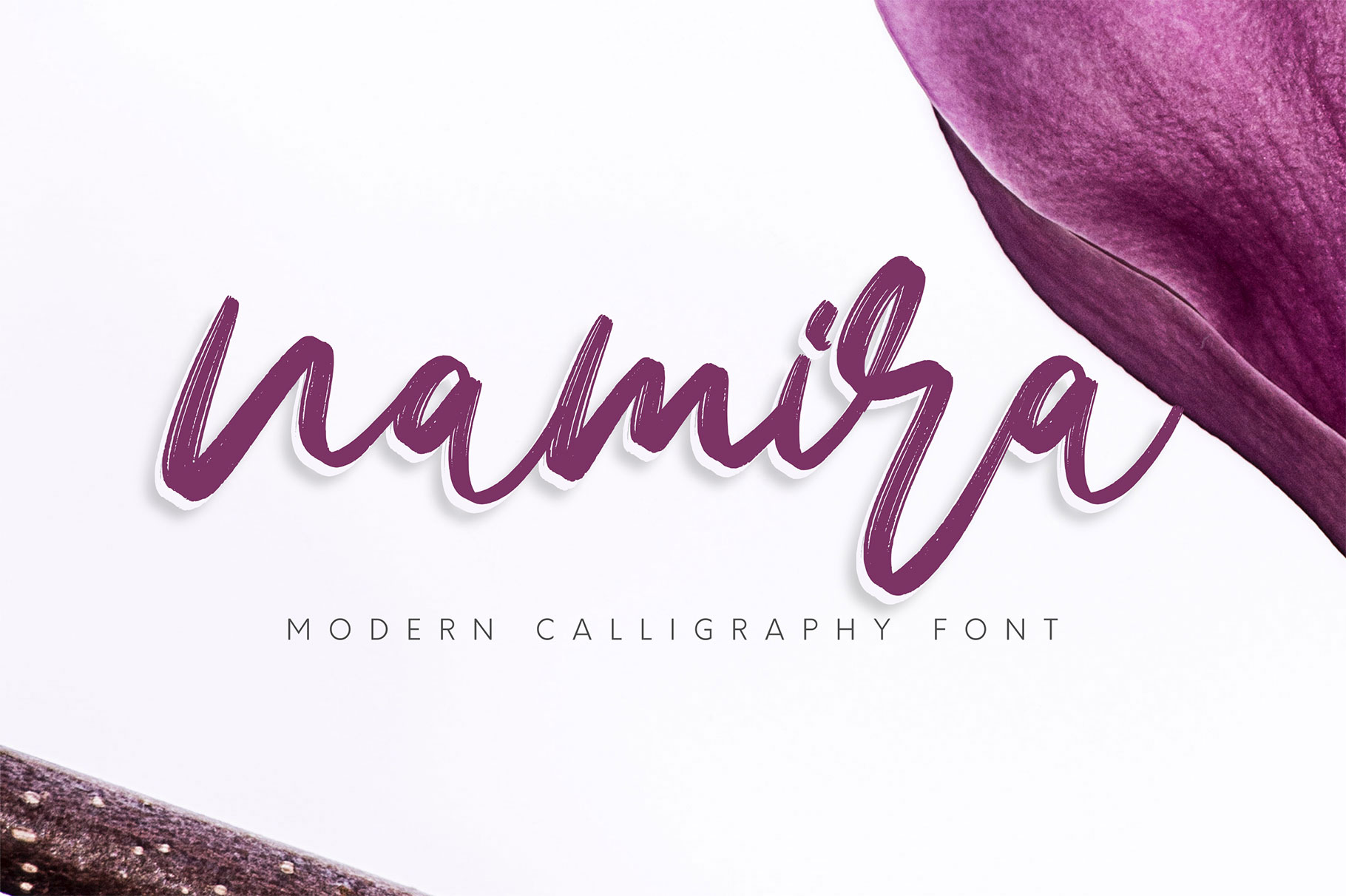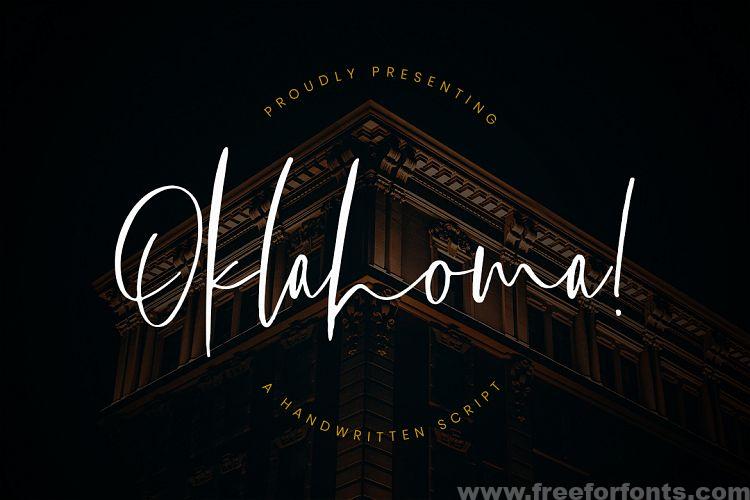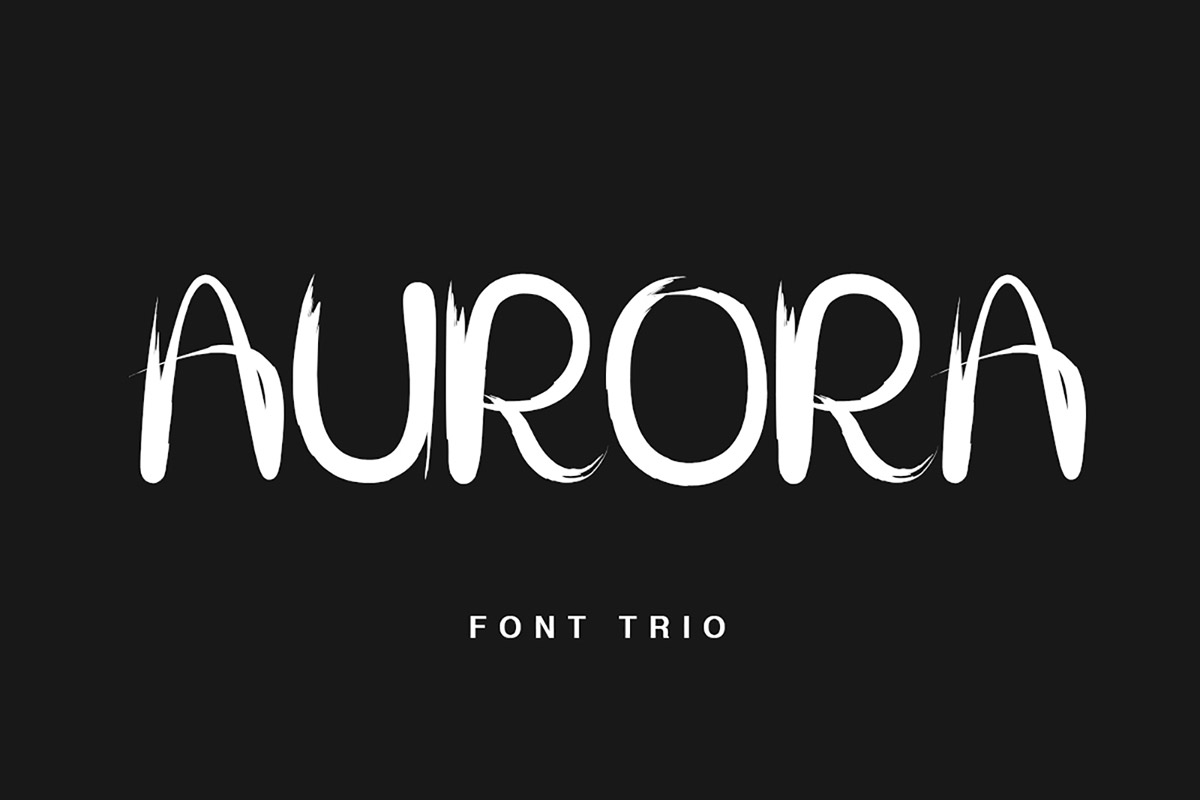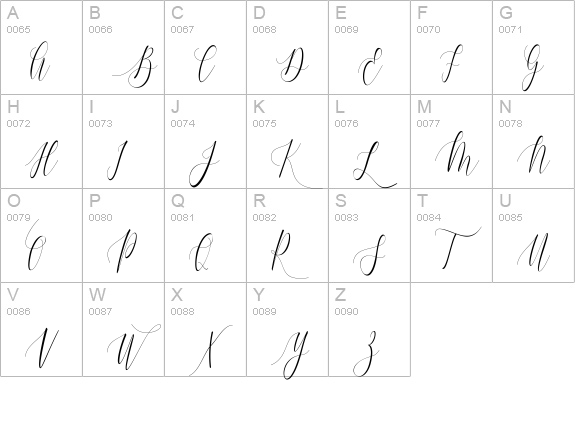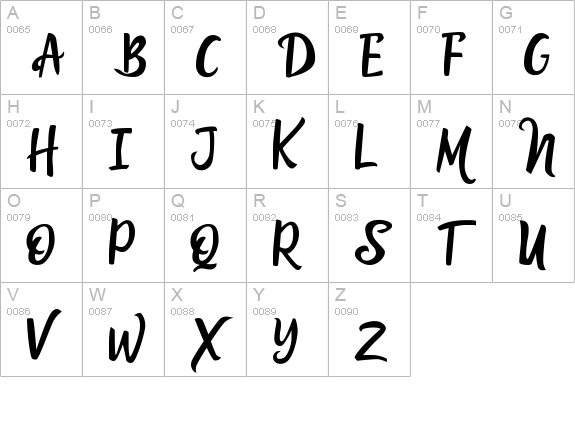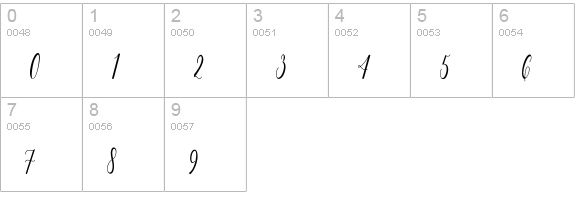
Undoubtedly the insertion of curved ornament in some parts adds more beauty and fascinating diversity in the flow line between sharp soft and curved parts.